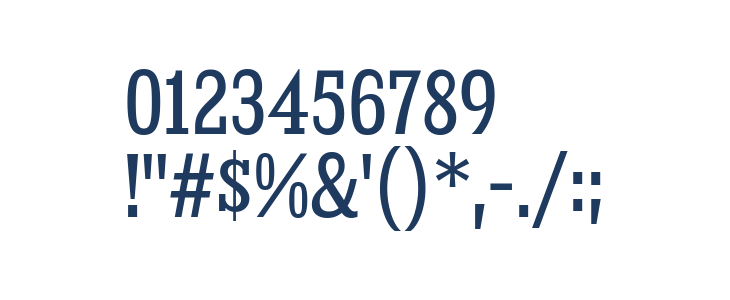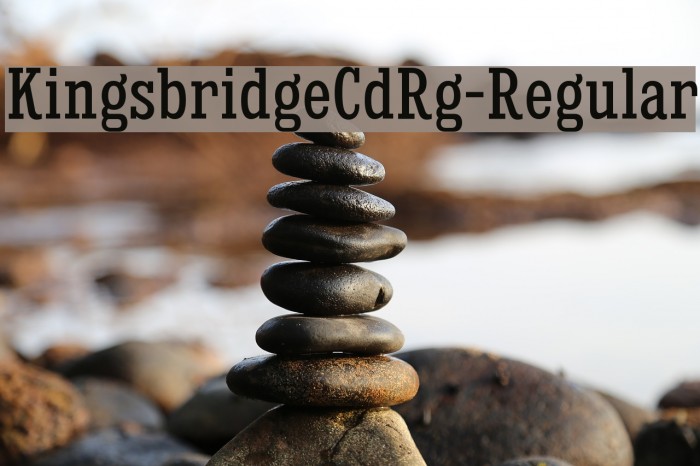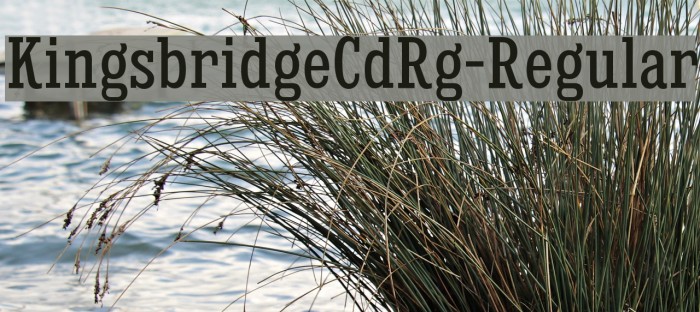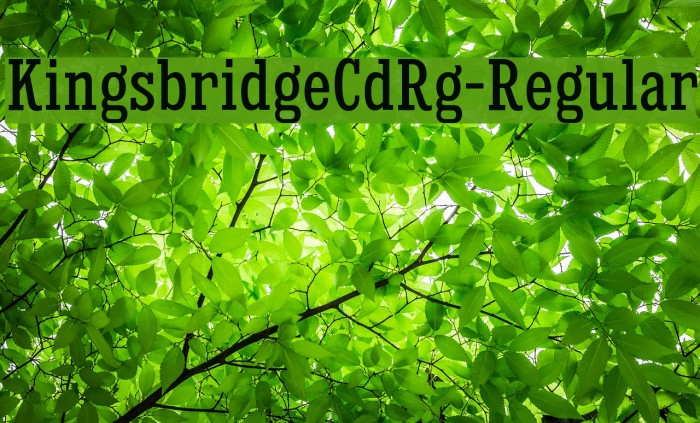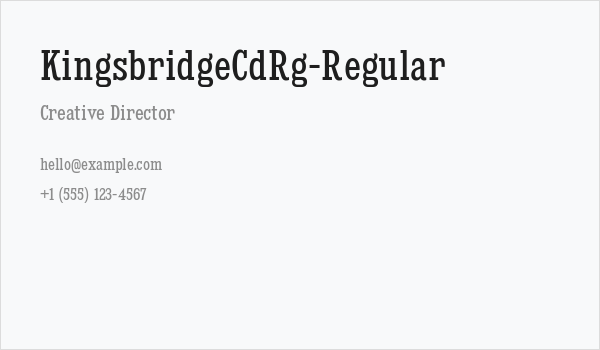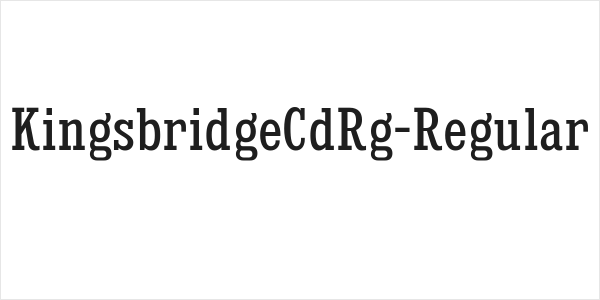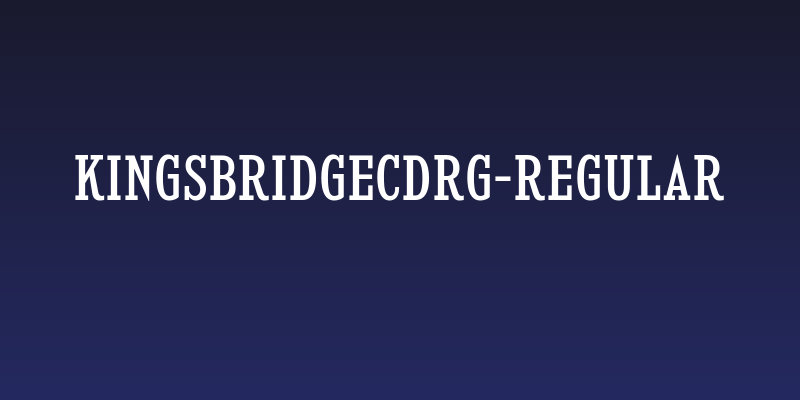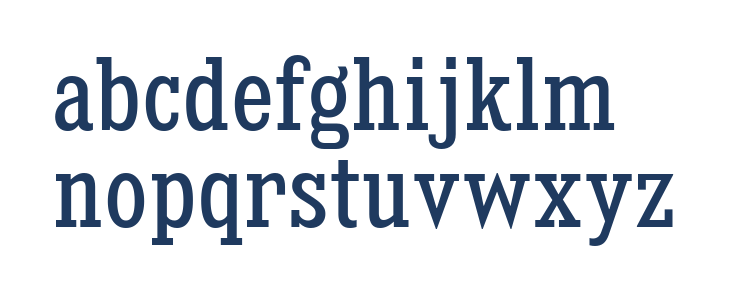
KingsbridgeCdRg-Regular Font
KingsbridgeCdRg-Regular Description
This font exhibits a classic serif style with a strong, authoritative presence. The characters are well-defined with prominent serifs that add a touch of elegance and tradition. The uppercase letters are bold and commanding, while the lowercase letters maintain a consistent and readable form. The numerals are clear and distinct, making them suitable for both text and numerical data. Special characters are crafted with precision, ensuring they integrate seamlessly with the rest of the typeface. The overall design is balanced, making it versatile for various applications.
| Proposed Projects | Ideal for editorial design, book covers, formal invitations, and branding projects that require a traditional yet impactful typeface. |